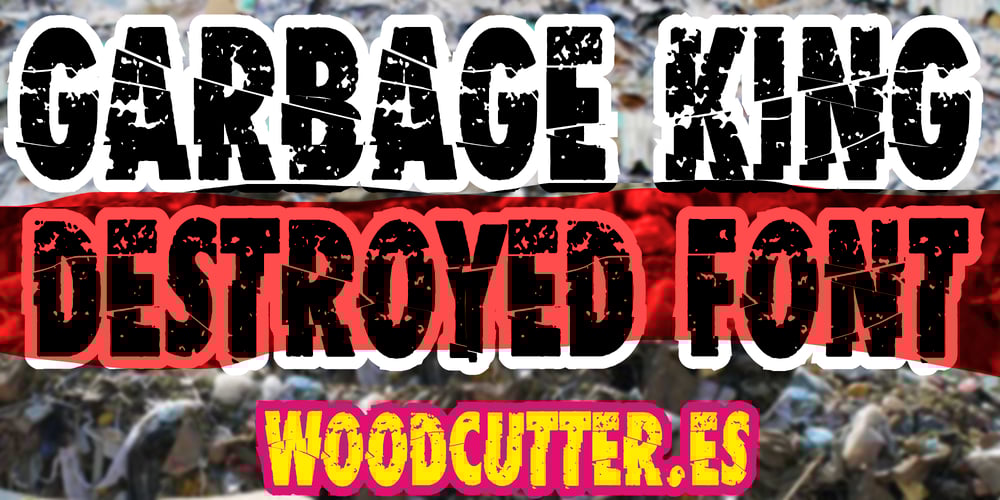
Garbage King
Garbage King font
Garbage King Font Family was designed by Jordi Manero and published by Woodcutter. Garbage King contains 1 styles and family package options. “Garbage King” is a striking and completely shattered typeface, with letters appearing cracked or broken as if made of glass. This font conveys a sense of chaos and destruction, perfect for bold and avant-garde designs. Ideal for posters, album covers, and graphic projects that seek a disruptive and dramatic style. “Garbage King” grabs attention with its unique and worn appearance, making any text stand out in a powerful and eye-catching way.